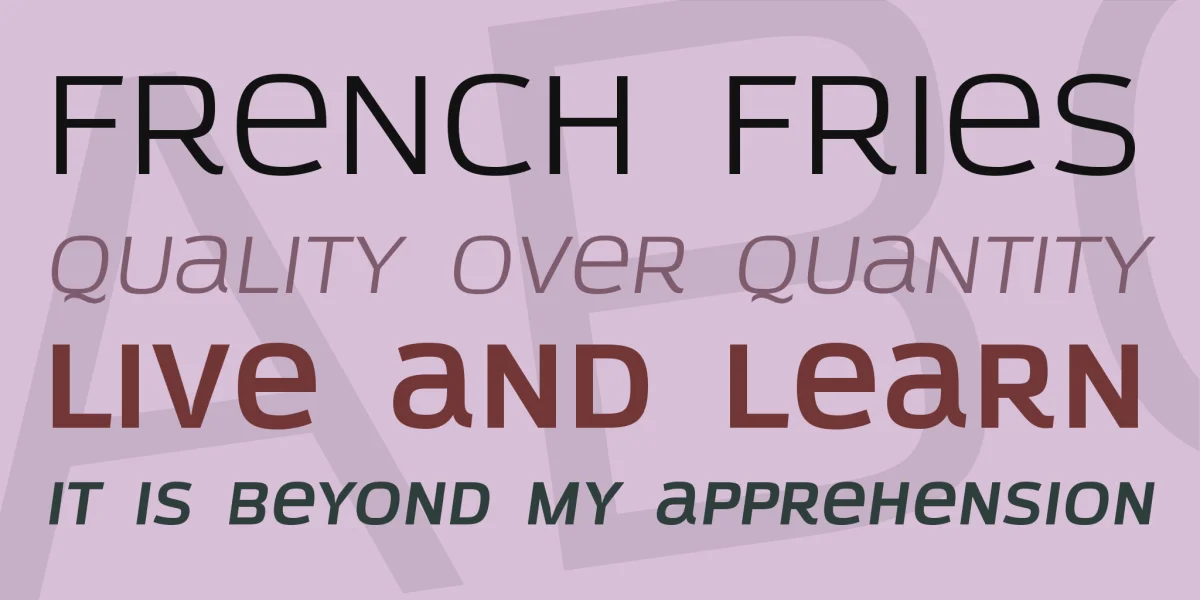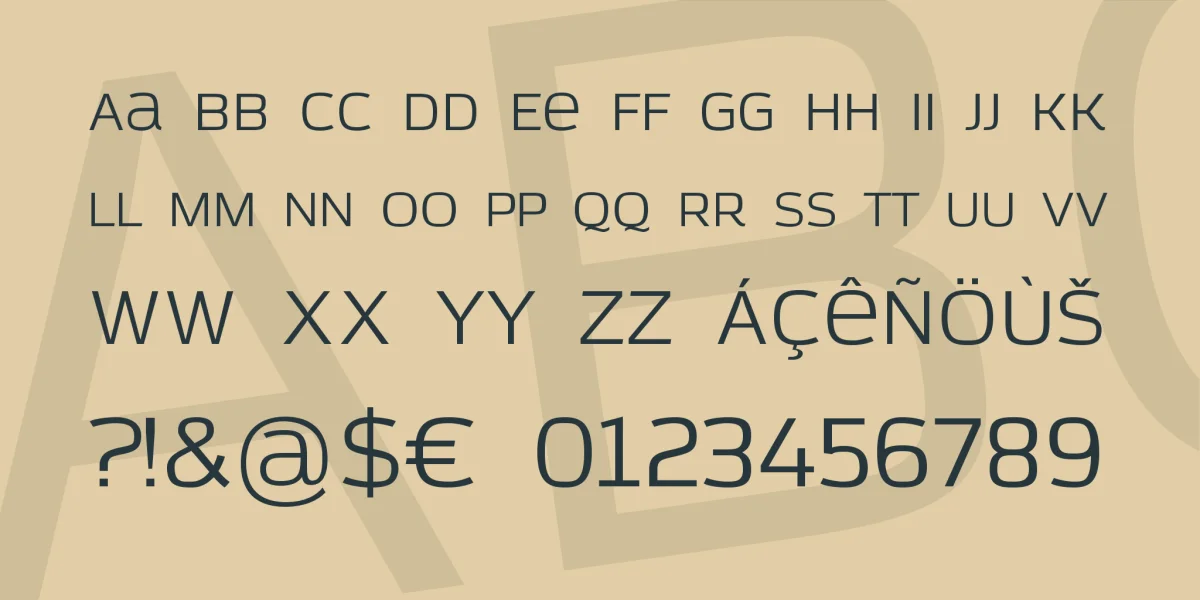
A new slightly widish typeface for stable and confident person. It’s a versatile font clean and easy to read. Try it! Bold is Perfect for publishing and corporate branding. Practical and good-looking typeface. Azoft Sans features many different stylistic sets, allowing for personalization. Enjoy and feel free to use it commercial projects as well. Feel free to express yourself. Show your individuality with new Azoft sans Italic Bold.